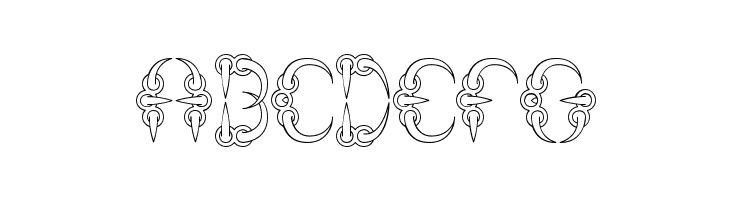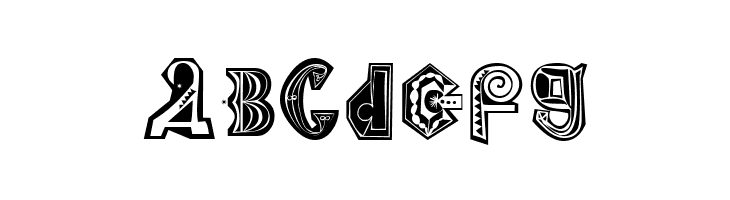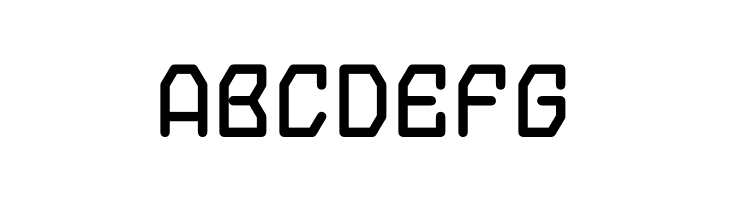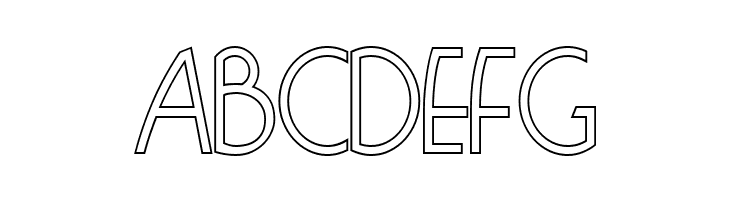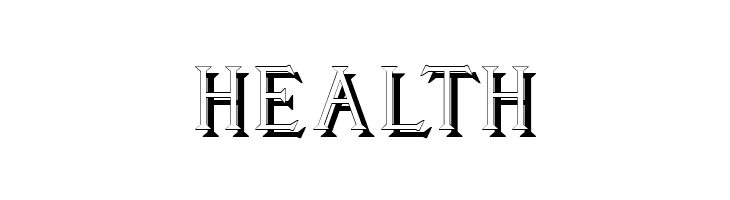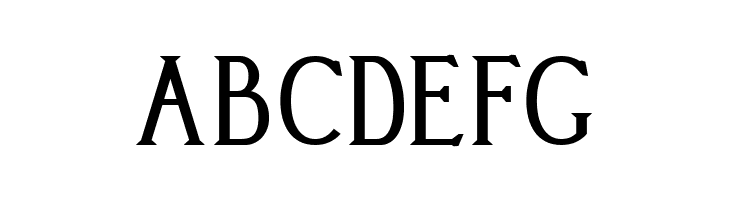
A modern outline font with geometric shapes and balanced proportions.
An intricate, claw-like decorative font with sharp, swirling elements.
A classic serif font with a modern twist, featuring elegant and refined letterforms.
A bold, heavy serif font with a classic and authoritative style.
A bold, shadowed serif font with a classic yet modern appeal.
A geometric, industrial-style font with bold, uniform strokes and rounded corners.
A whimsical and decorative font with playful, unique characters.